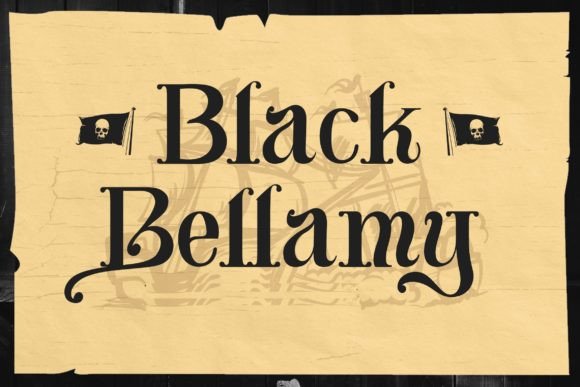
Introducing Black Bellamy: The Ultimate Pirates Display Font
Ah, the thrill of the high seas! The swashbuckling adventures, the treasure hunts, and the legendary pirates who ruled the waves. As designers, we’ve all been there – stuck on a project, searching for that perfect font that captures the essence of our creative vision. I recall working on a pirate-themed book cover, struggling to find a font that embodied the bold, rugged spirit of the buccaneers. That’s when I discovered Black Bellamy, a game-changing display font that brings the thrill of the high seas to your designs.
A Personal Design Moment: Finding the Perfect Font
I was working on a tight deadline, and my client wanted a font that would make their book cover stand out. I scoured the internet, tried out countless fonts, but none seemed to fit the bill. That’s when I stumbled upon Black Bellamy, and it was love at first sight! The bold, rugged design and the touch of adventure it exuded made it the perfect fit for my project. I knew right then that I had to share this amazing font with fellow designers, crafters, and creative hobbyists.
An Honest Review of Black Bellamy
The Good, the Great, and the Amazing ✨
- ✅ Versatility: Black Bellamy is a versatile font that can be used for a variety of projects, including book covers, posters, branding, packaging, logos, and more.
- ✅ Bold and Rugged Design: The font features a bold and rugged design that is perfect for projects that require a touch of adventure.
- ✅ Easy to Read: Despite its bold design, Black Bellamy is surprisingly easy to read, making it perfect for headlines and titles.
- ✅ Unique Personality: The font has a unique personality that sets it apart from other fonts, making it perfect for designs that need to make a statement.
- ⚠️ Limited Use in Body Text: While Black Bellamy is perfect for headlines and titles, it may not be the best choice for body text due to its bold design.
- ⚠️ Requires Attention to Kerning: As with any font, attention to kerning is required to ensure that the text looks its best.
- Experiment with the font’s OpenType features, such as glyphs and stylistic alternates, to add more personality to your design.
The Backstory of Black Bellamy
Black Bellamy was designed with the pirate enthusiast in mind. The font’s creator was inspired by the golden age of piracy, and the bold, rugged designs that characterized the era. The result is a font that embodies the swashbuckling spirit of the high seas, perfect for designs that require a touch of adventure.
Q: What is Black Bellamy?
A: Black Bellamy is a Pirates display font that brings the swashbuckling spirit of the high seas to your designs.
Q: What can I use Black Bellamy for?
A: Black Bellamy is a versatile font that can be used for a variety of projects, including book covers, posters, branding, packaging, logos, and more.
Q: Is Black Bellamy easy to read?
A: Despite its bold design, Black Bellamy is surprisingly easy to read, making it perfect for headlines and titles.